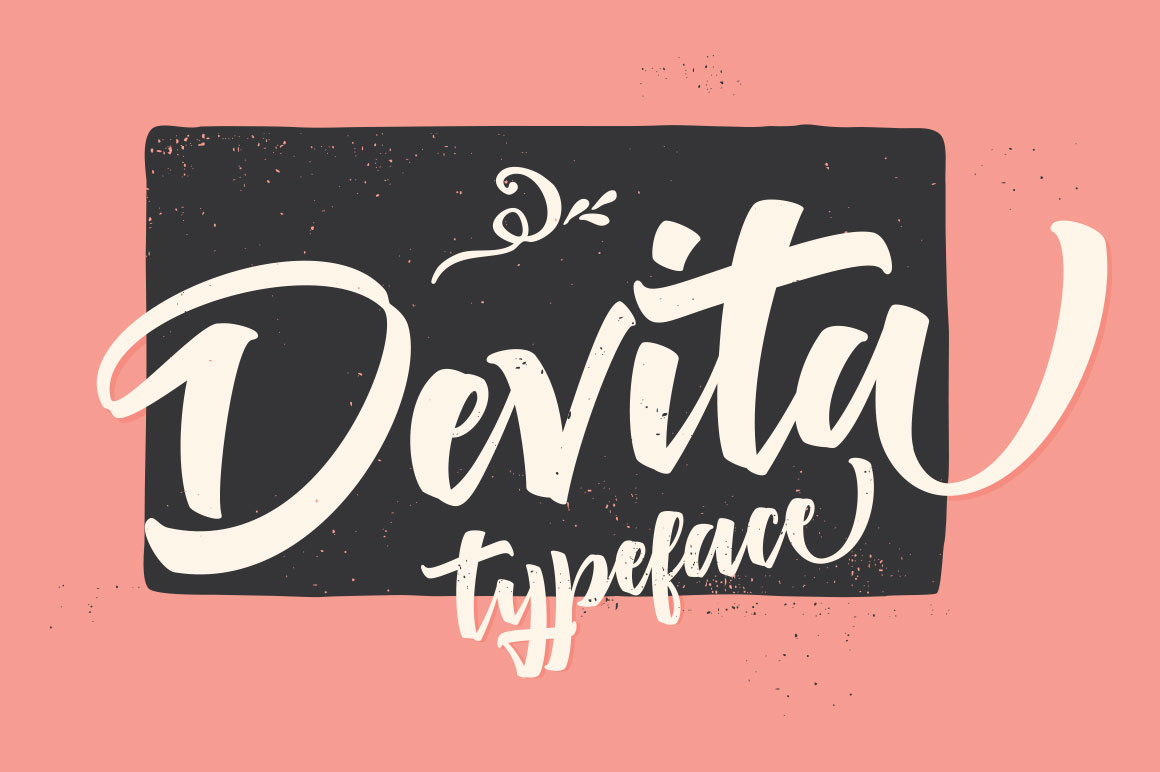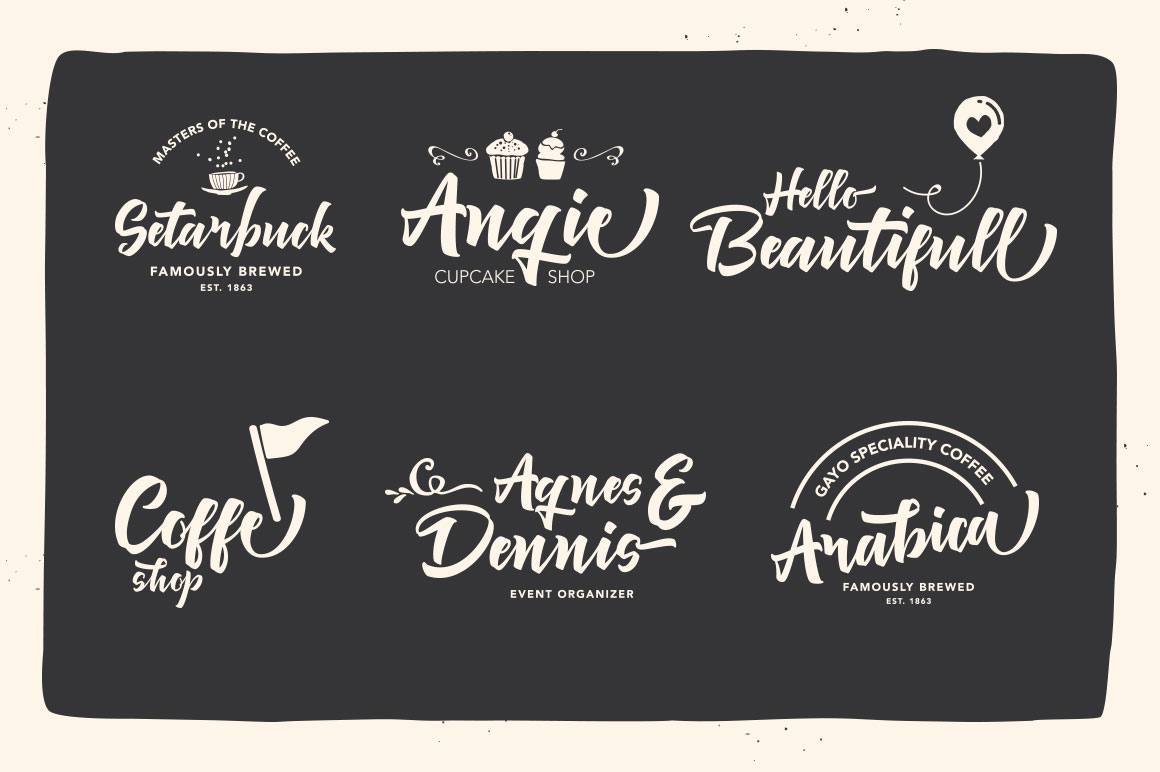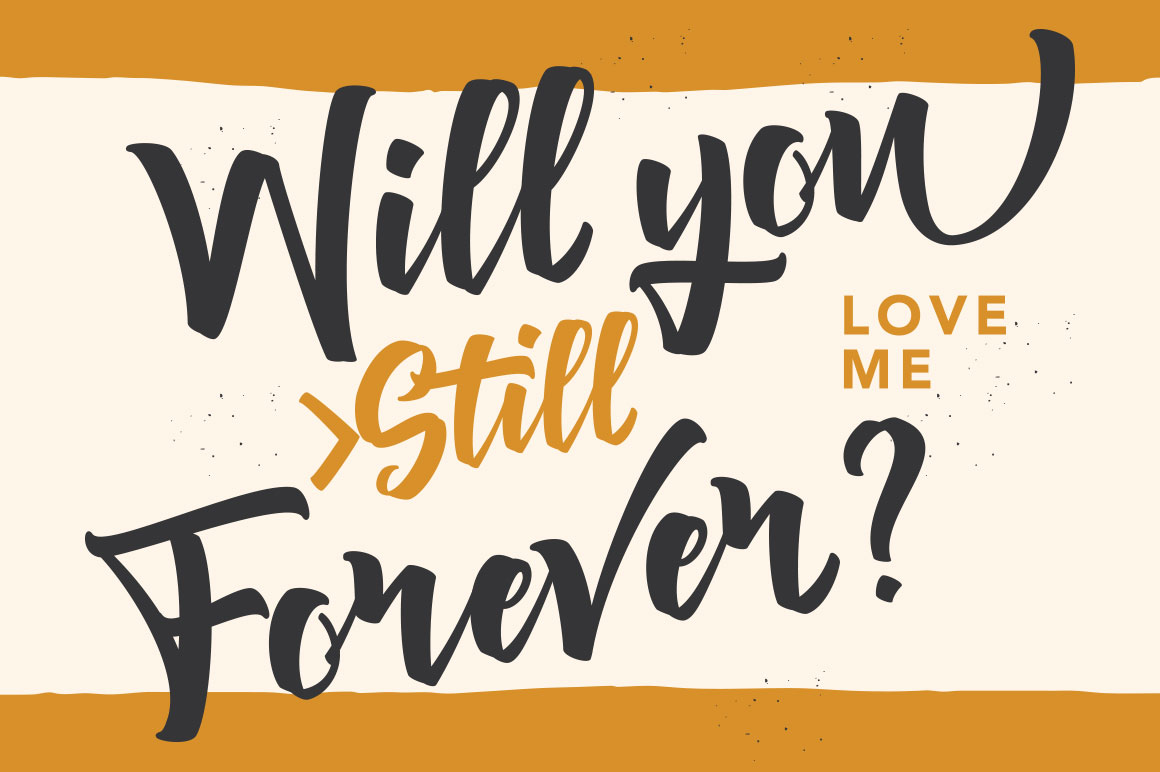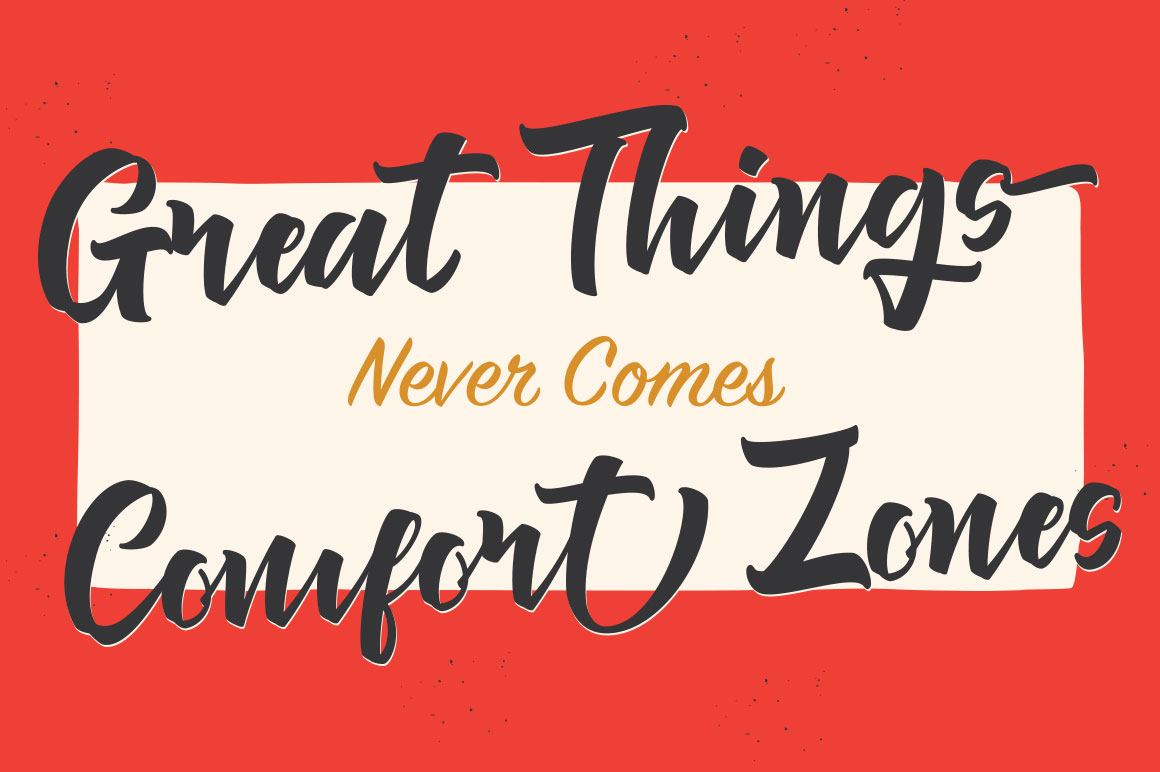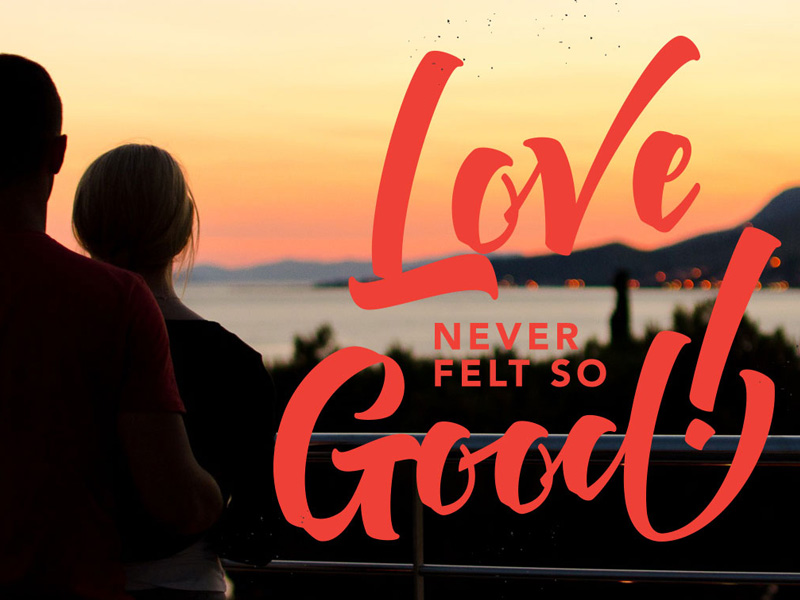
Devita Font
About Devita Font
Devita is an exquisite brush lettering script font, perfect for displays and much more. With an artfully irregular baseline and wide strokes, this is a font that doesn’t have to try to stand out – it just does.